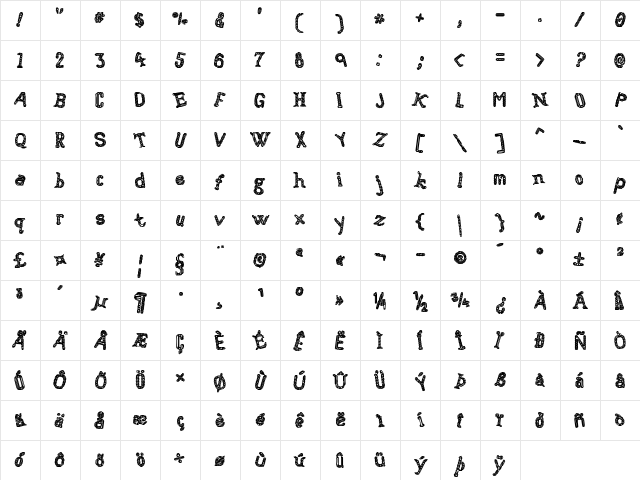
Counterproductive Regular
| Designer | Walter E Stewart |
Design Context for Counterproductive Typeface
Counterproductive is a composed and adaptable typeface that performs quietly and consistently across a wide range of design contexts.